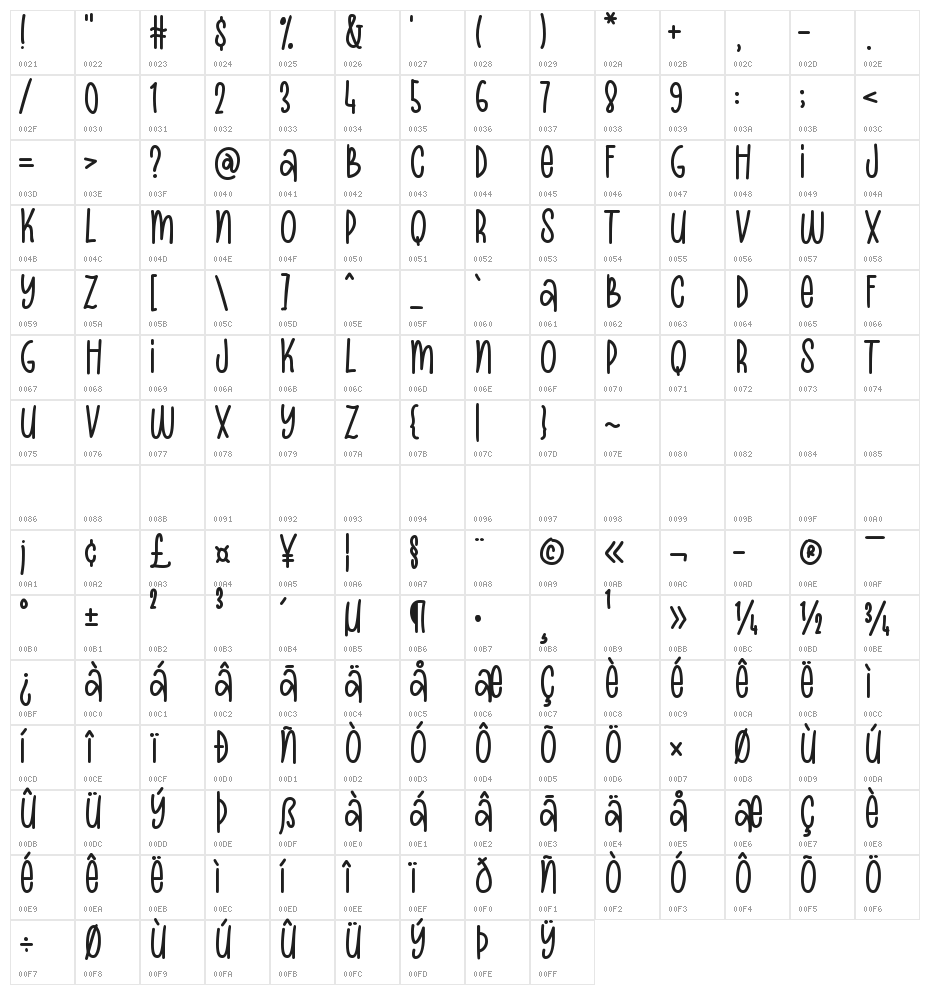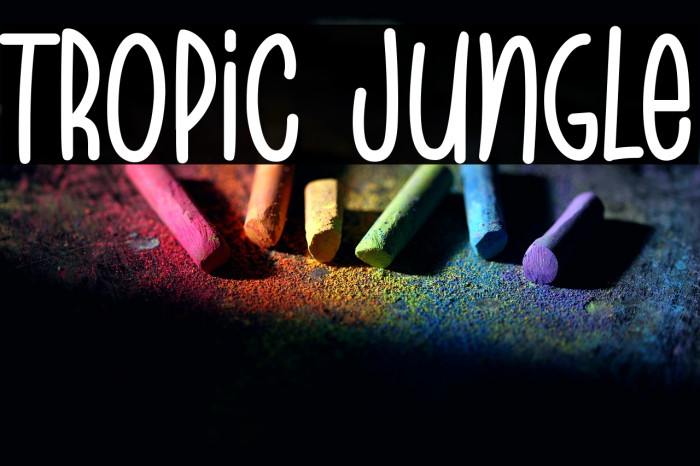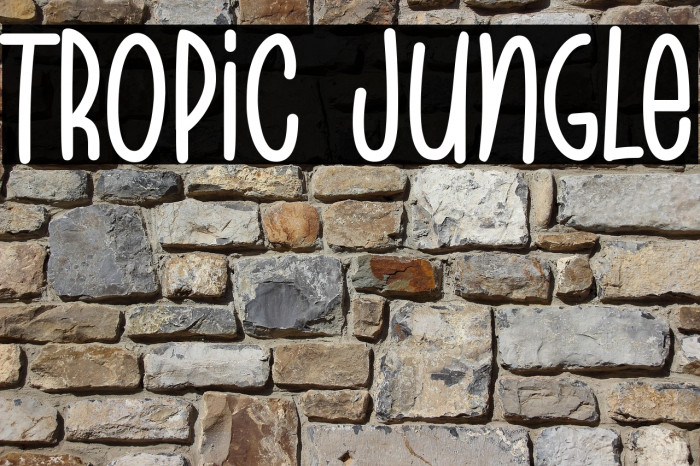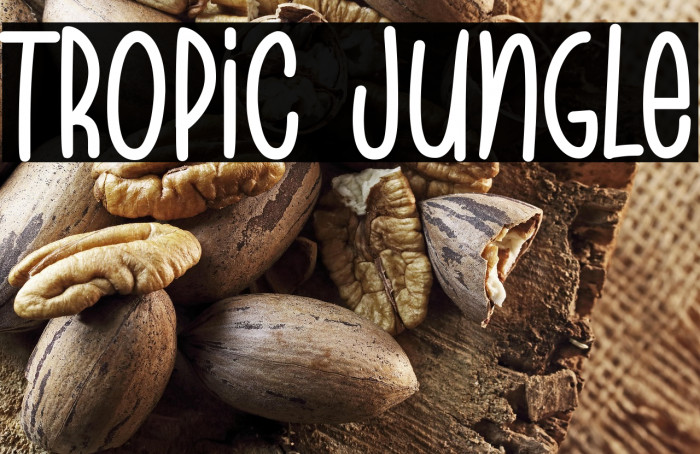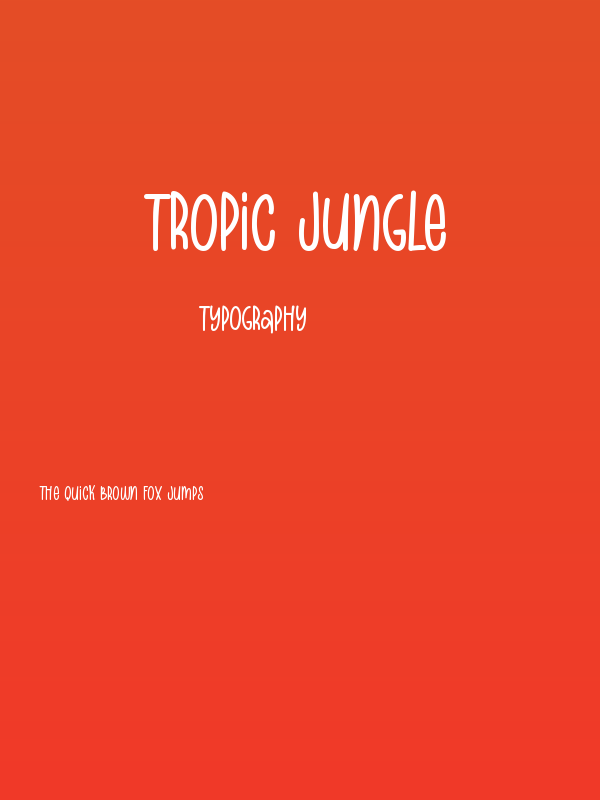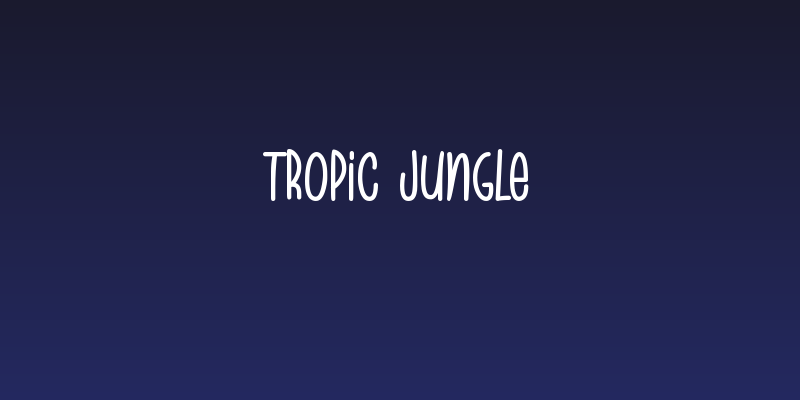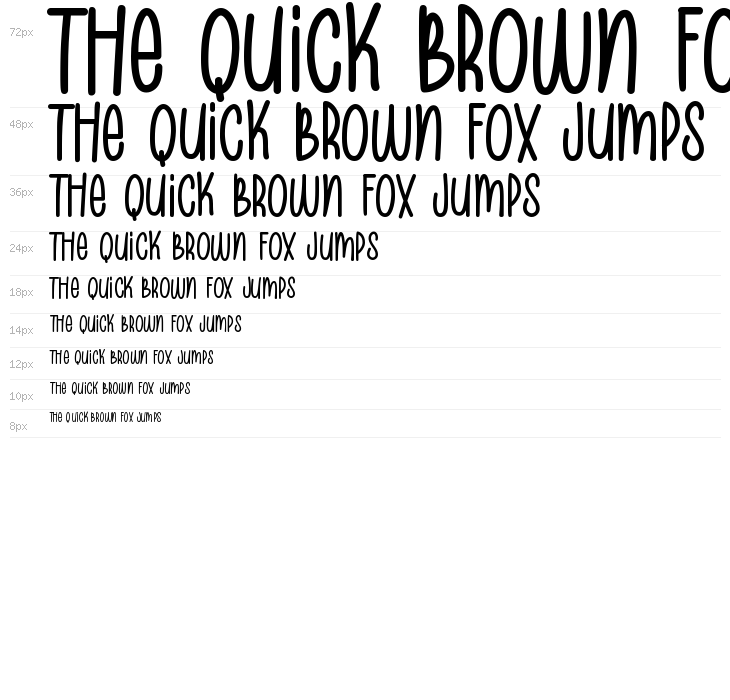
Tropic Jungle Font
Tropic Jungle Description
A playful, handwritten font with a casual and organic feel, featuring rounded edges and a slightly irregular baseline.
| Use Case | Logos, Headlines, Informal text |
| Proposed Projects | Greeting cards, children's books, casual branding. |